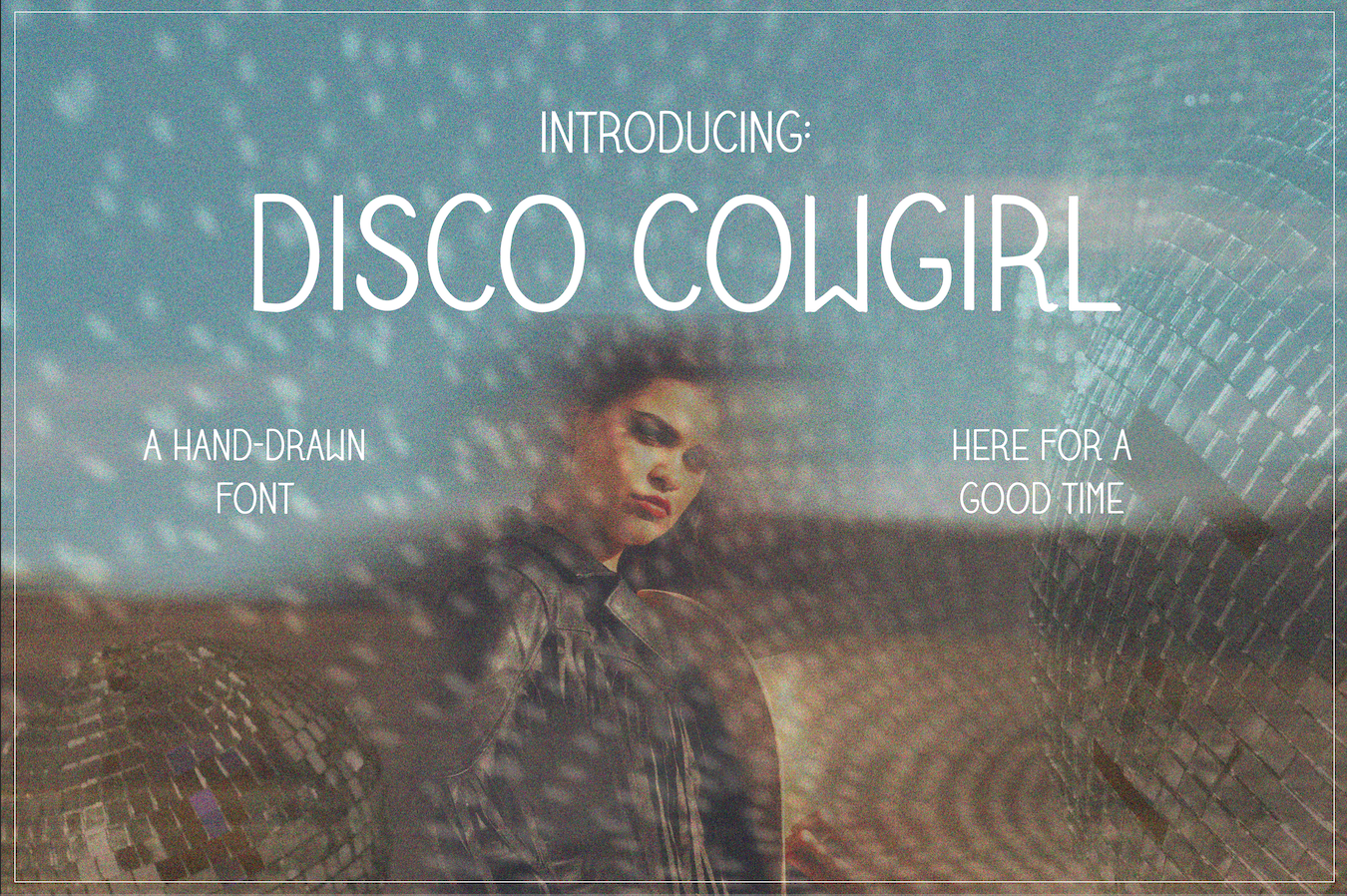
Disco Cowgirl Font
A hand drawn all-caps font for those who are rough and tough, but also a little delicate!
I love all things disco and western, so I drew this font to feel a at home on the ranch or as the life of the party.